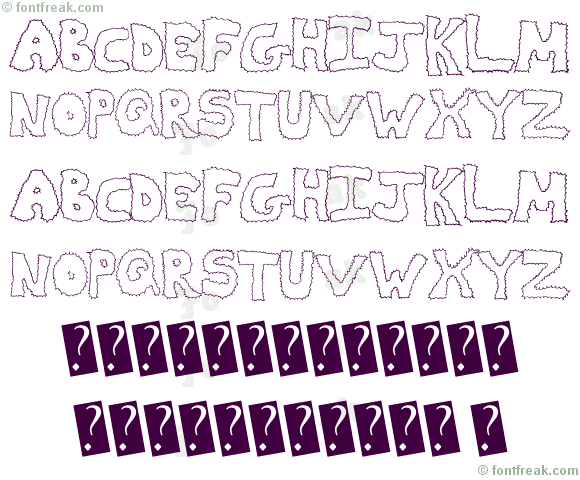
ZapDeal
About ZapDeal
ZapDeal is a unique display font created by Xerographer Fonts, designed with a playful and whimsical character that sets it apart from traditional typefaces. The font features a distinct, hand-drawn style, characterized by irregular stroke weights and a bouncy, uneven baseline that adds an organic feel to any design. The light, jagged lines give it a lively and informal look, making it perfect for projects that require a touch of creativity and fun.
Ideal use cases for the ZapDeal font include vibrant wedding invitations that aim to convey a sense of joy and celebration, eye-catching movie posters that need to attract attention and evoke excitement, and trendy restaurant menus that seek to present a casual and inviting atmosphere. Additionally, this font can be utilized in children's book covers or educational materials, where an engaging and approachable aesthetic is essential. Its unique charm also appeals to graphic designers, small business owners, and content creators looking to enhance their visual branding.
The target audience for the ZapDeal font spans a wide range, from creative professionals seeking distinct typography to entrepreneurs seeking to make their marketing materials stand out. The font's versatility allows it to be adapted to various contexts while maintaining its playful essence.
What makes the ZapDeal font truly remarkable is its ability to infuse personality into any design project. Its quirky style not only captures attention but also invites viewers to engage with the content on a deeper level. With the ZapDeal font free download available, designers can easily incorporate this fun and distinctive typeface into their creative toolbox, ensuring that their work remains fresh and memorable. Whether for personal or commercial projects, the ZapDeal font is a delightful choice that brings a unique flair to any design.